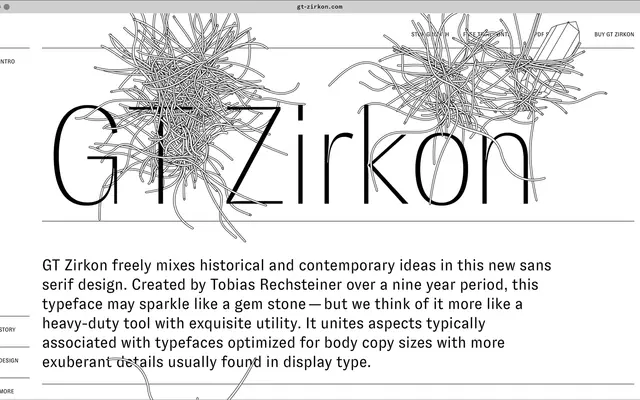
GT Zirkon
Grilli Type · Tobias Rechsteiner · 2018
Tobias Rechsteiner's 16-style workhorse sans that applies small-size optimisation as a refined design feature.
A 16-style sans by Tobias Rechsteiner, released in 2018. Grilli call it an extravagant sans serif workhorse that blends rational tool and ornamentation by applying small-size optimisation techniques in a refined way. Eight weights from Ultra Light to Black come with italics throughout, plus alternates including an Alt f and old-style and tabular figures.
Grilli describe it as an extravagant sans serif workhorse that blends rational tool and ornamentation by applying small-size optimisation techniques in a refined way.